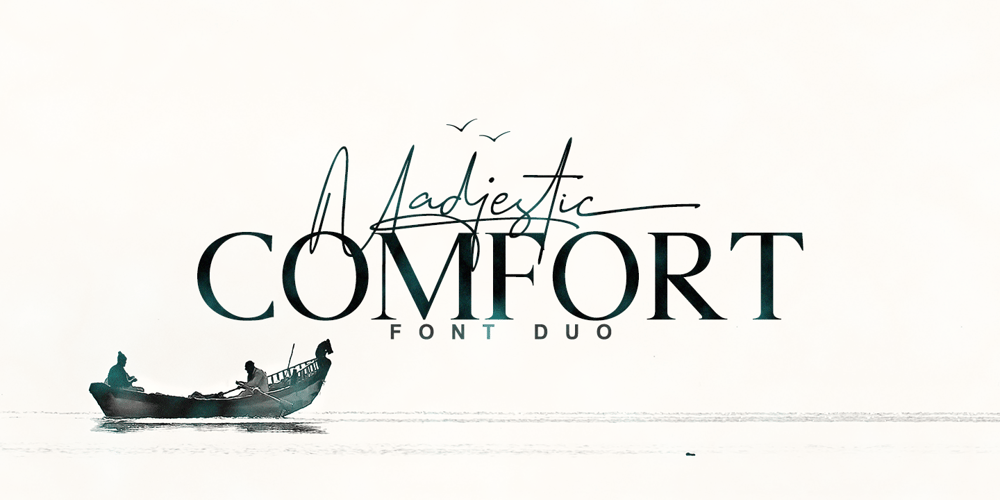
Madjestic Comfort Script
Madjestic Comfort Script font
Madjestic Comfort Script Font Family was designed by Sadat Fauzi and published by Fauzistudio. Madjestic Comfort Script contains 2 styles and family package options. Introducing Madjestic Comfort font duo, a contemporary pair of scripts and serif fonts. The term Madjestic is not a mistake, but it was an accent game of an area in asian, by adding “d” before “j”.With a didot style serif font and flowing script companion, Madjestic Comfort offers beautiful typographic harmony for a variety of design projects, including logos & branding, wedding design, social posting media, advertising & product design.